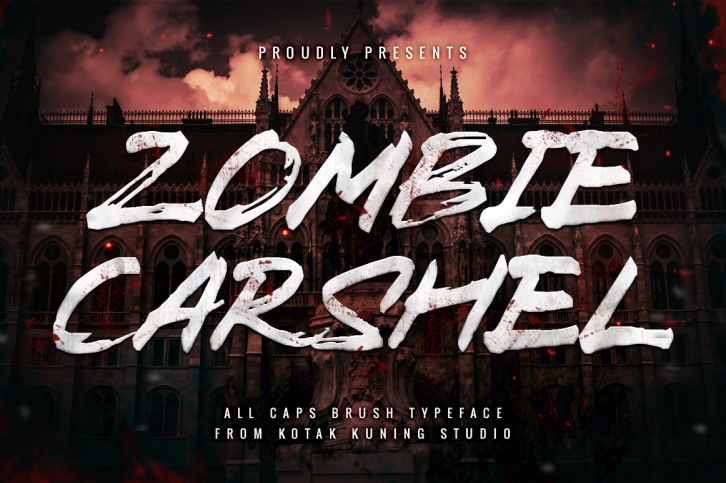
Zombie Carshel is a trendy and unique font with an authentic style. It was designed by Kotak Kuning Studio and it's a great choice for creative people who need such a font. It was released on August 22, 2019 and the file size is 7.11 MB. Zombie Carshel will add an organic vibe to any design idea!